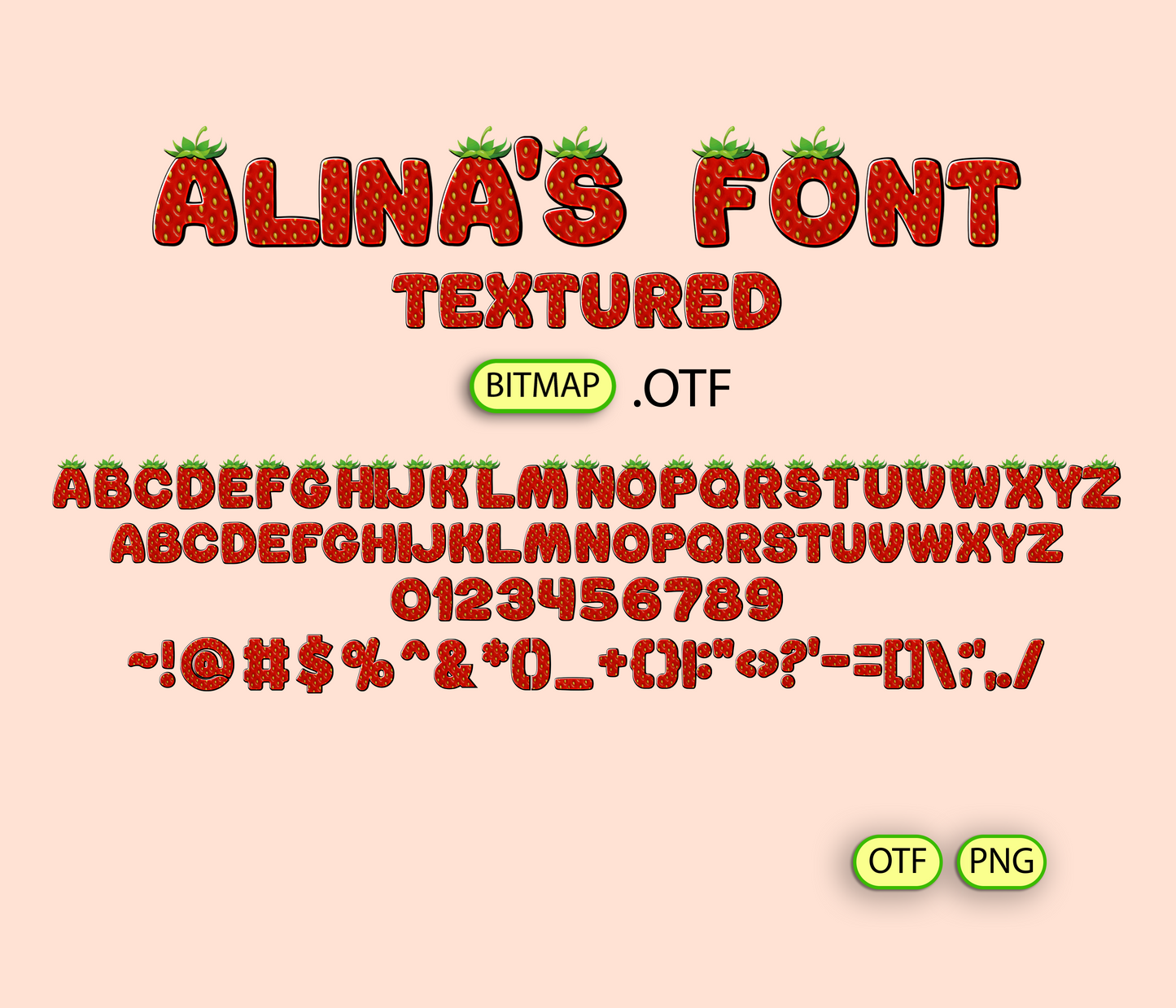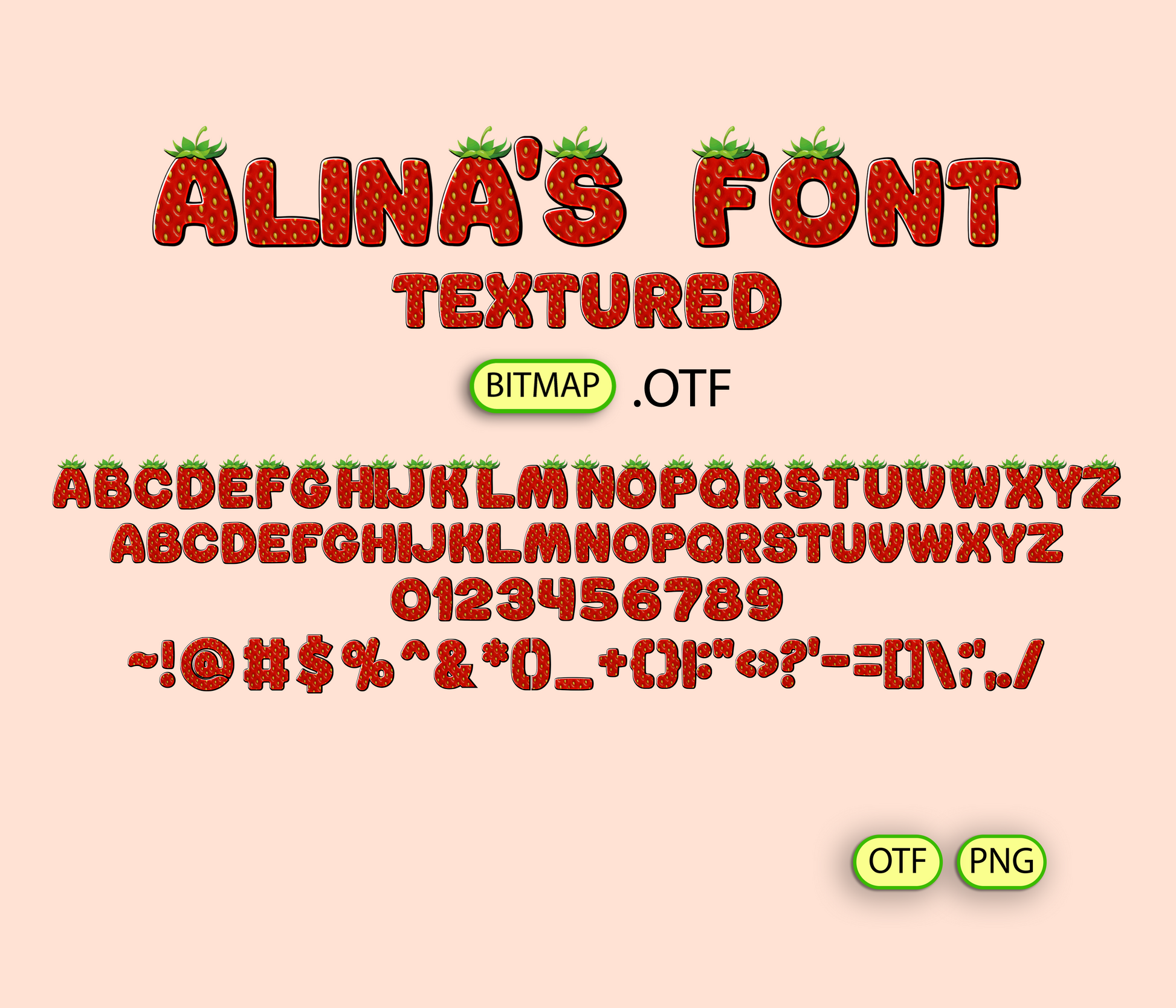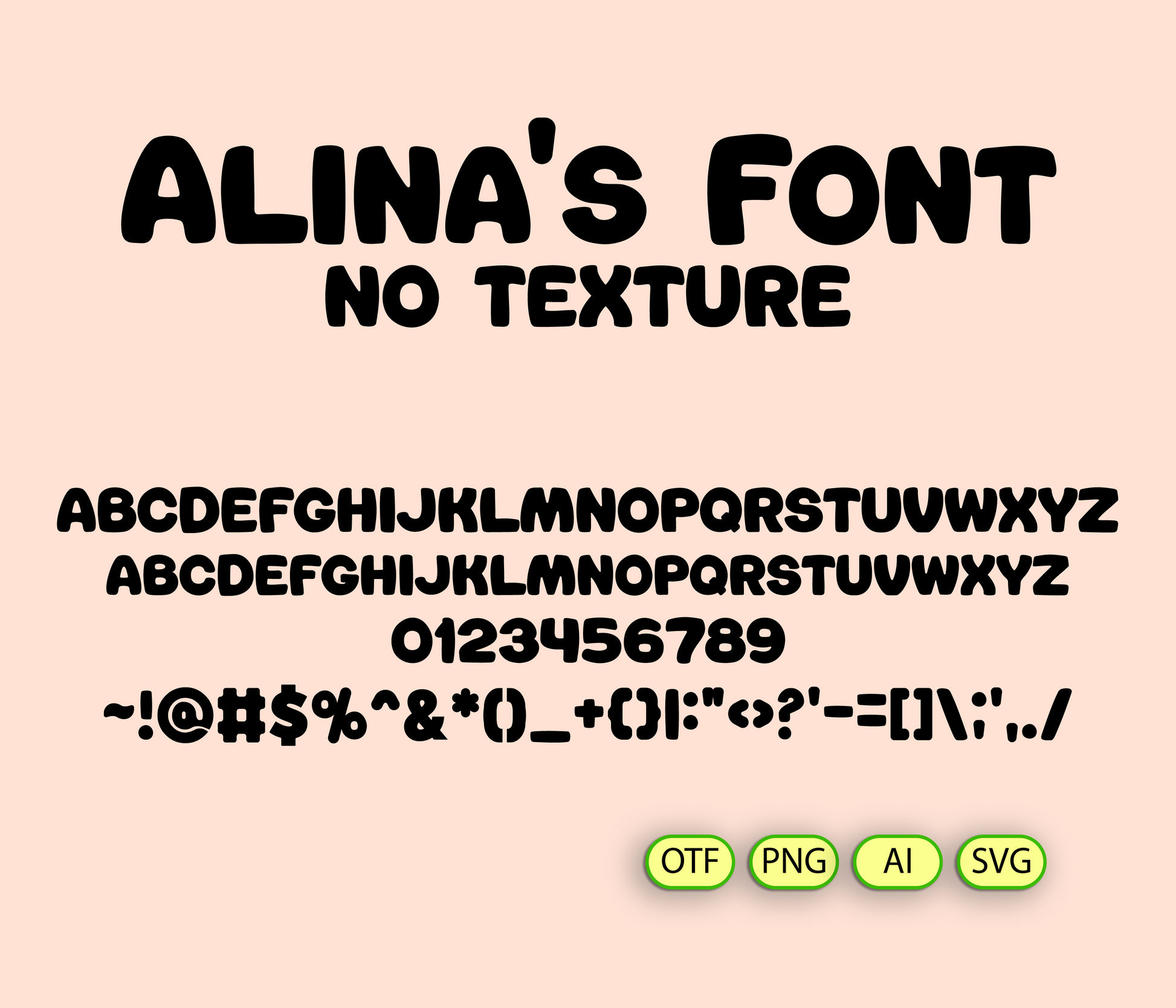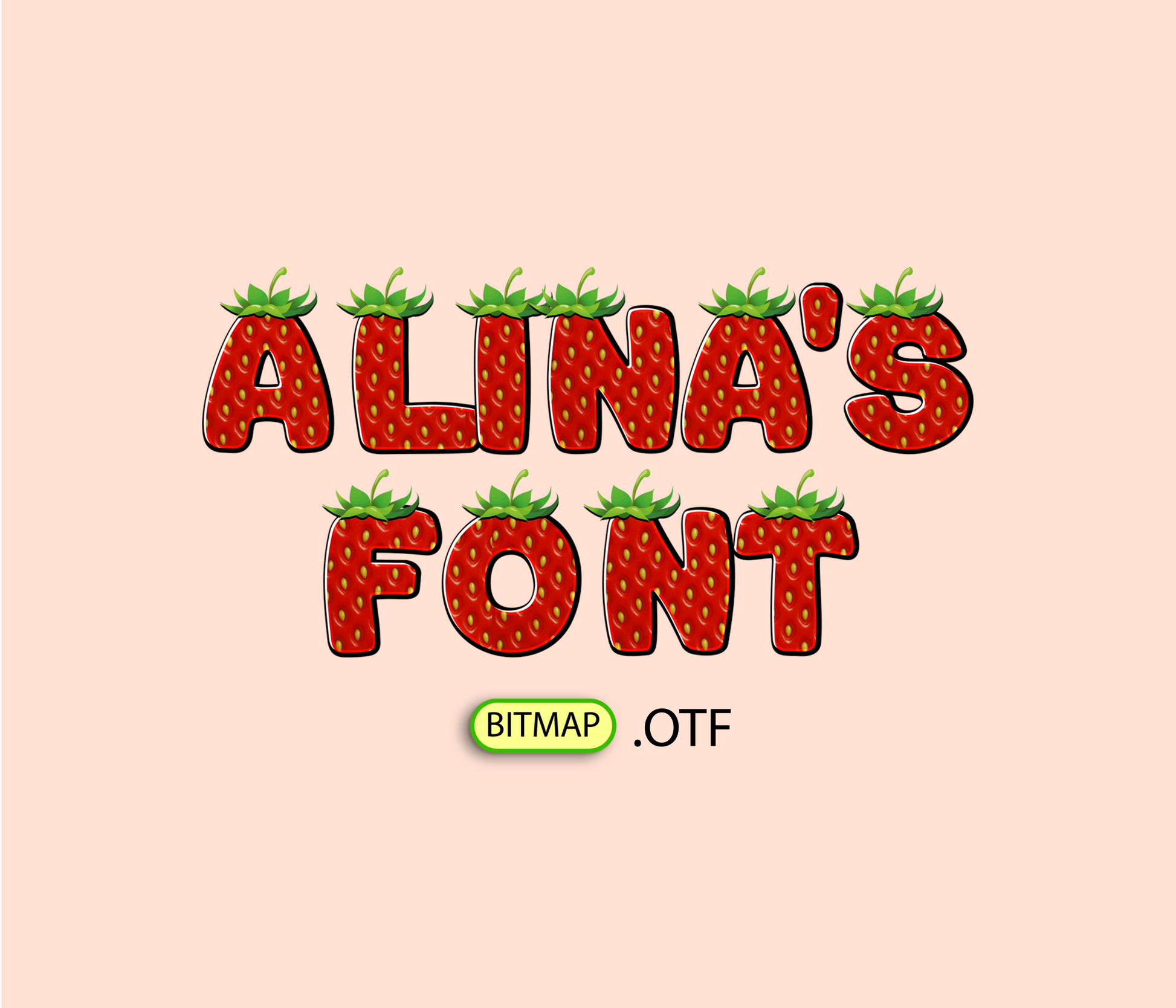
FREE Strawberry Pattern Font
Berry Sweet Pattern Font
Step into the deliciously vibrant world of summer fruits with our Berry Sweet font, capturing the essence of juicy strawberries and fresh harvest delights. Perfect for seasonal celebrations, food businesses, children's content creators, and creative professionals, this font brings the sweet, refreshing spirit of berry picking to your projects. Create appetizing invitations, fruit-themed merchandise, or digital content with the bright, cheerful energy of ruby-red berries and summer abundance.
Our Berry Sweet font features plump, rounded shapes and seed-dotted characters reflecting the natural charm and sweetness of summer's favorite fruit. Ideal for:
- Food Promotions: Create attention-grabbing menus, posters, and banners for farm stands, bakeries, and fruit-themed gatherings
- Children's Design: Perfect for educational materials, party invitations, and playful accessories that capture young imaginations
- Digital Media: Enhance websites, blogs, and social media with appetizing headers and graphics that express freshness and sweetness
- Seasonal Content: Add authentic character to summer projects, recipe collections, and promotional materials for fruit-focused products
- Personal Projects: Bring fruity charm to scrapbooking, DIY crafts, and home decor inspired by the colors and textures of berry season
Our Berry Sweet font includes textured and non-textured variants, ensuring compatibility with all software, including Canva. This feature allows easy incorporation into designs for users of all skill levels.
Many seek an online font generator to mimic the look of the Berry Sweet Font. Steer clear! No generator can match the quality of our font, which comes in two versions: a textured colored font and a simple version, perfect for cutting machines.
Our font pays tribute to the irresistible appeal of summer's juiciest treasures, empowering your designs with its fresh and delightful spirit. Whether crafting promotional materials, designing seasonal merchandise, or adding a sweet touch to personal projects, this font communicates the natural charm and joy of berry season. Ready to inject fruity freshness into your creations? This font is your key to sweet, impactful design.